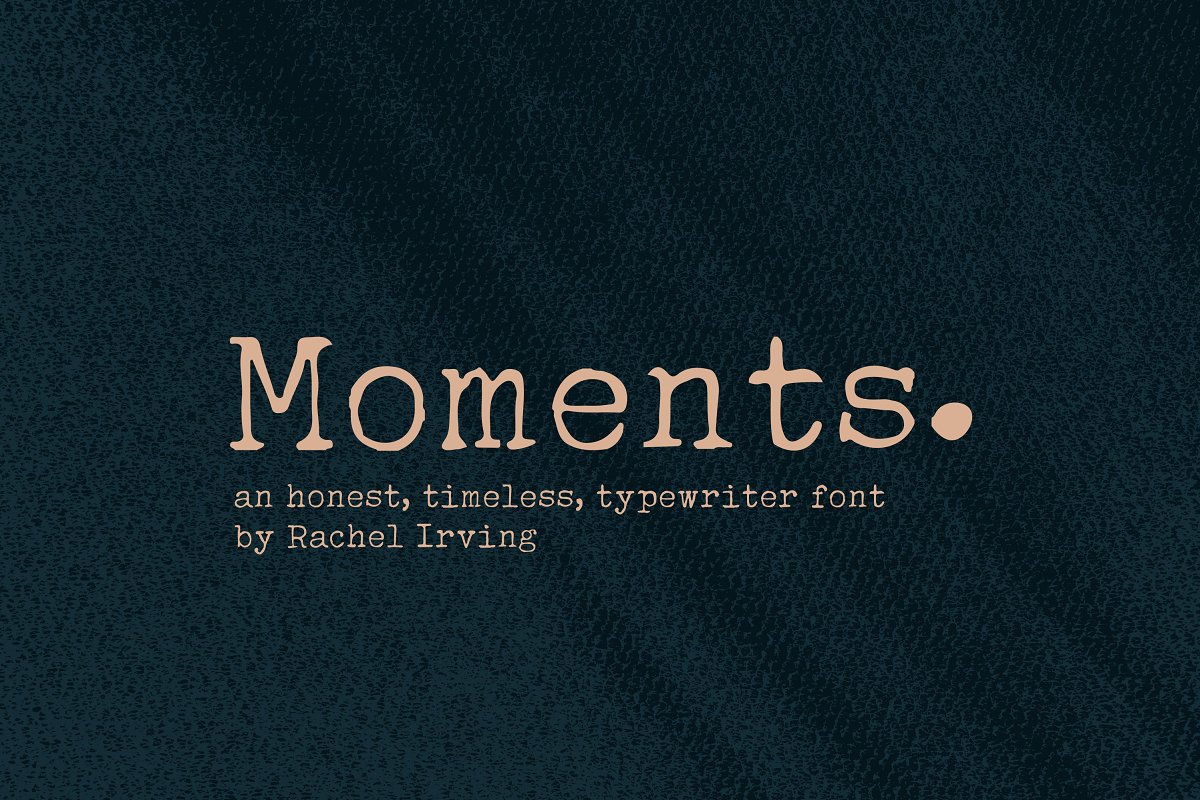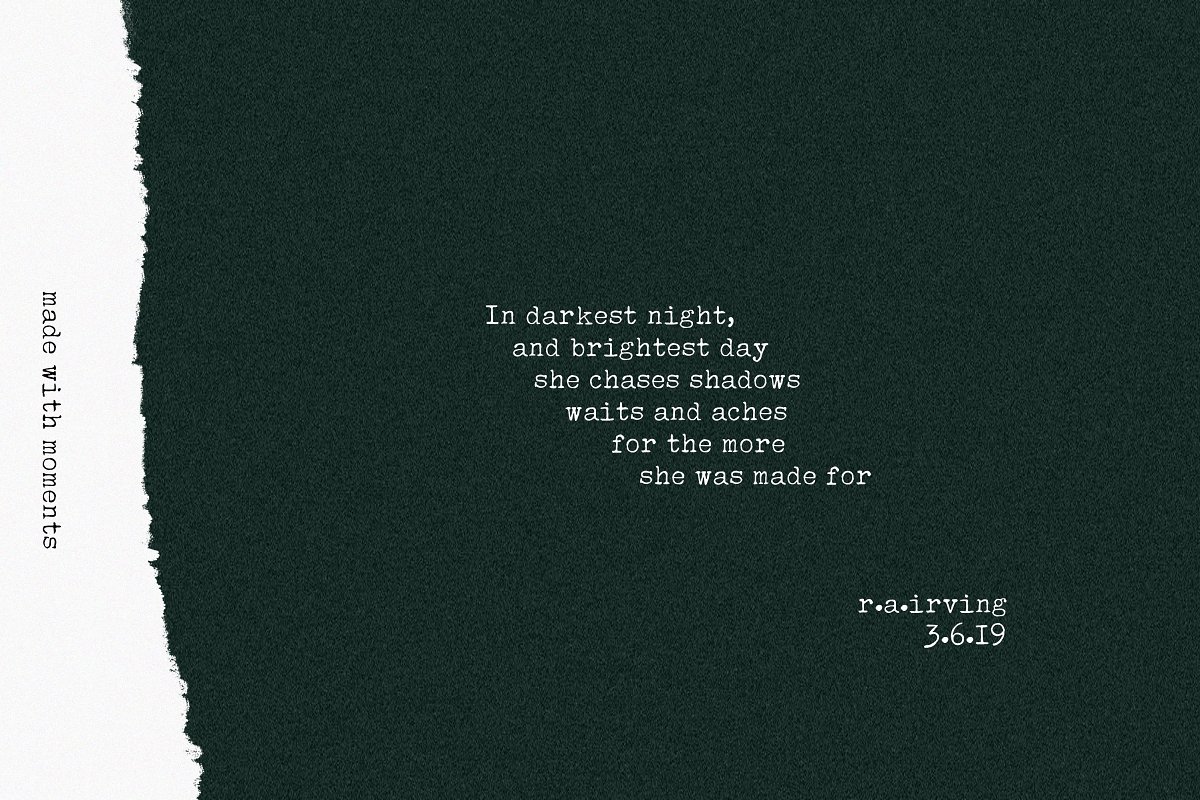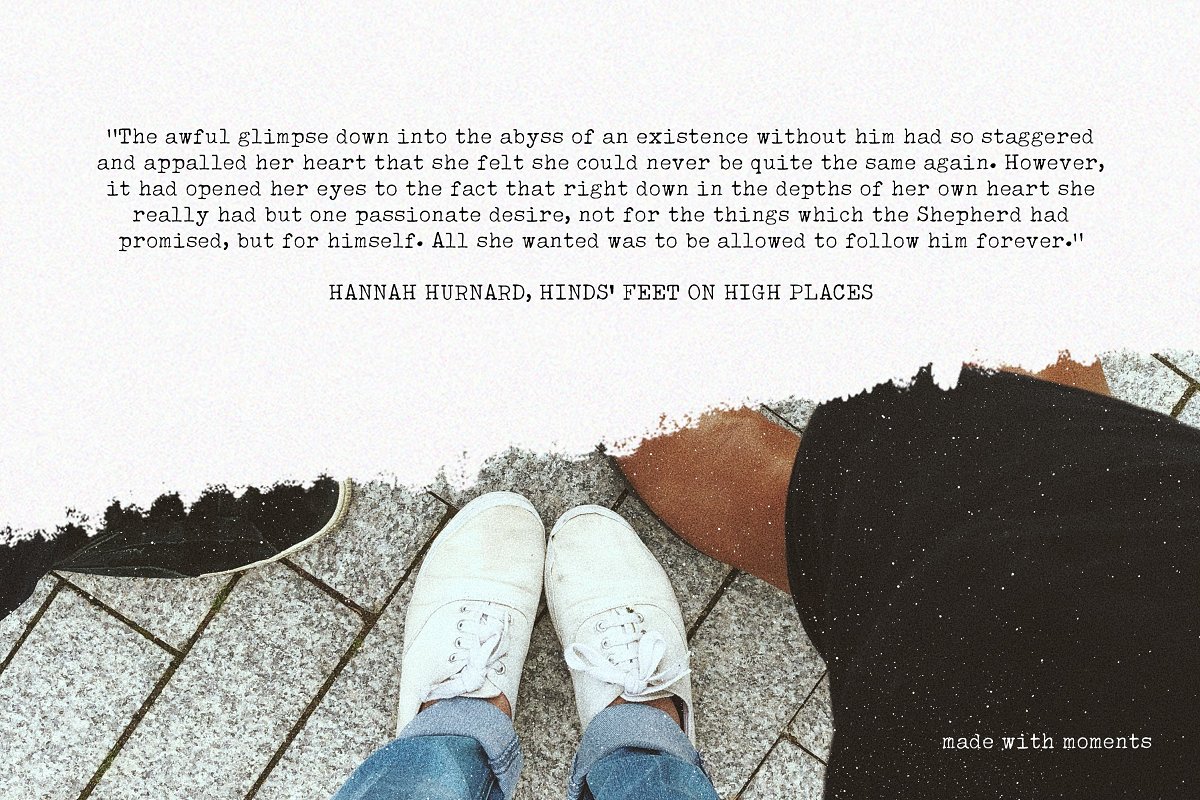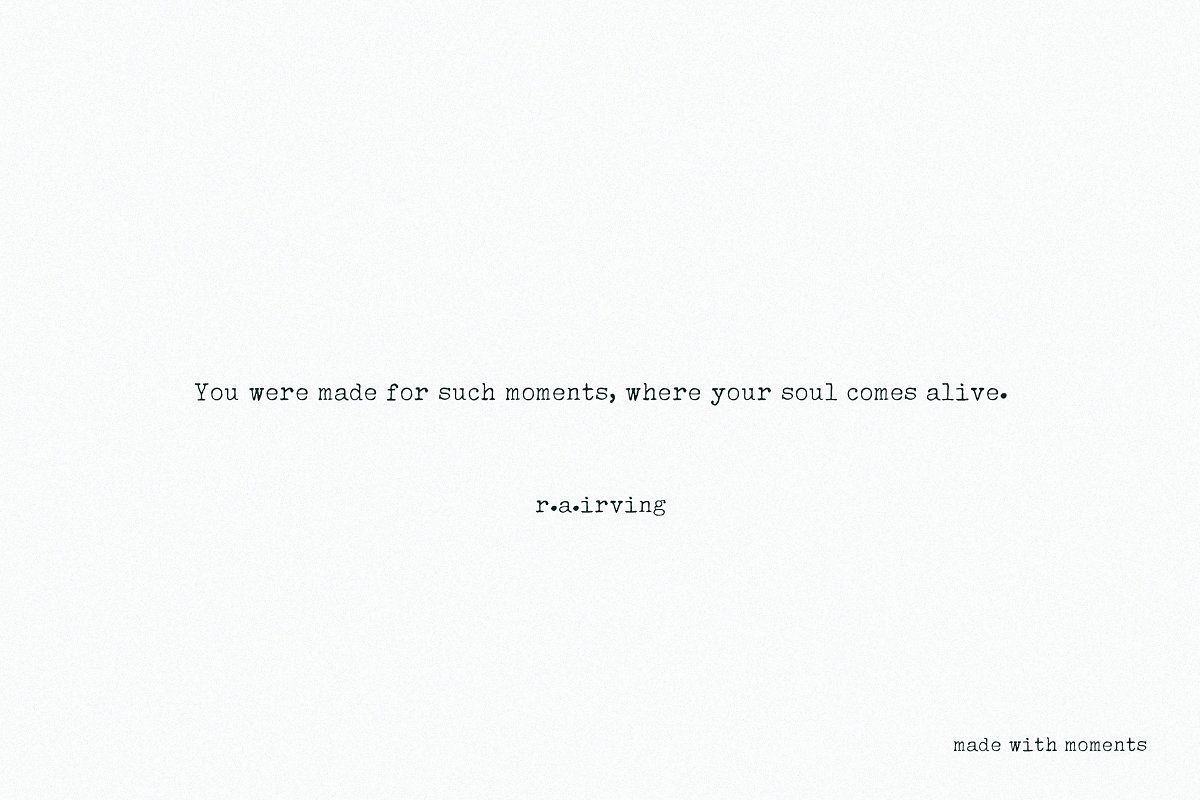
About the Moments Typewriter Font
Inspired by fleeting moments: those we have and hold and those same many that fall through our fingertips, Moments is an honest, timeless type-written script font, With an edge of elegance and nostalgia, it endeavours to capture the moments we have, Intentionally crafted for creators, Moments offers an elegant typographic solution for creative projects